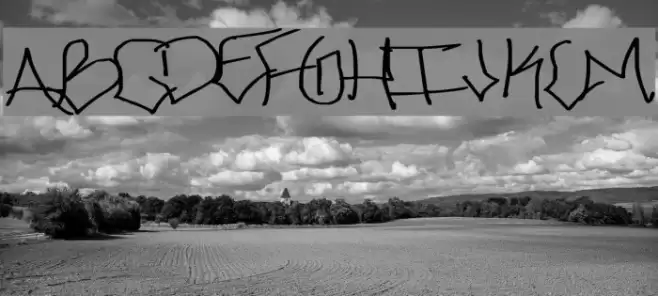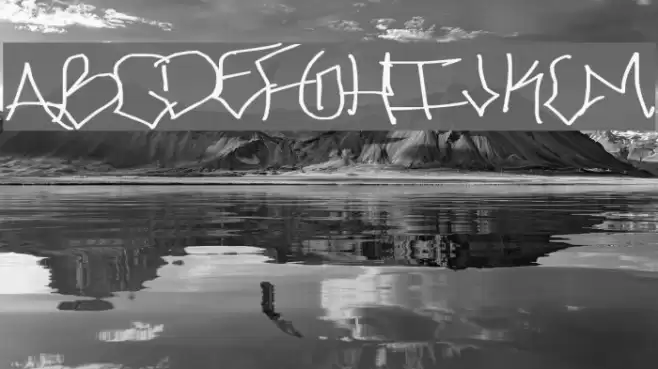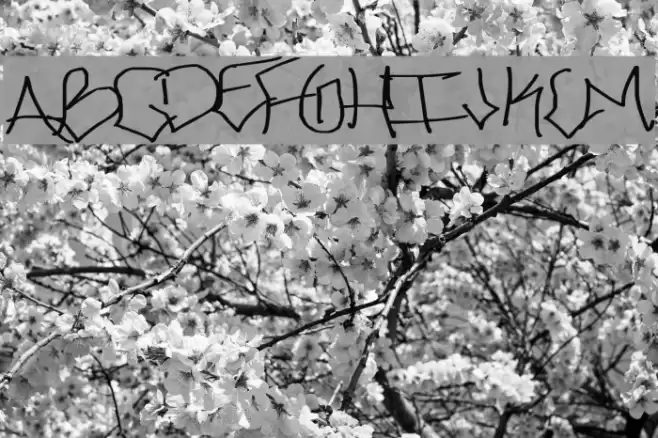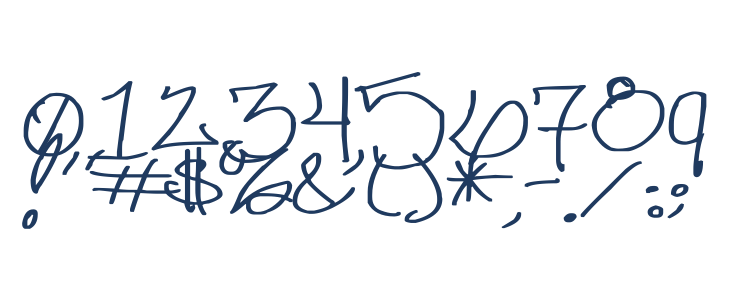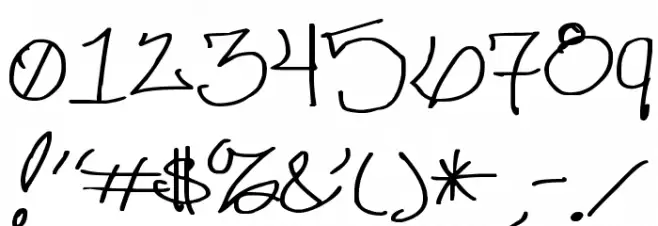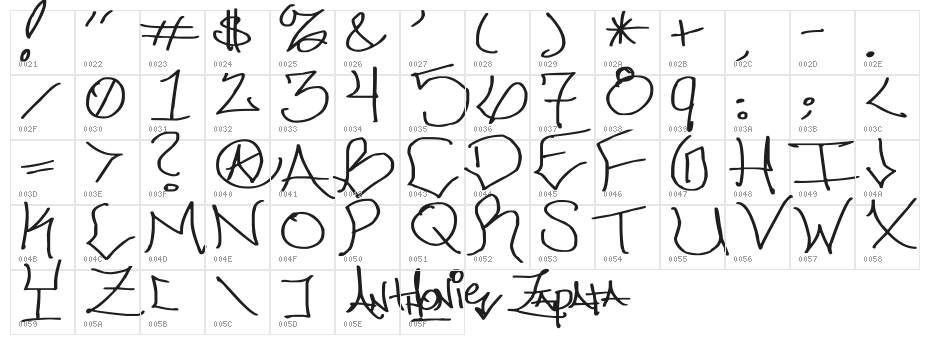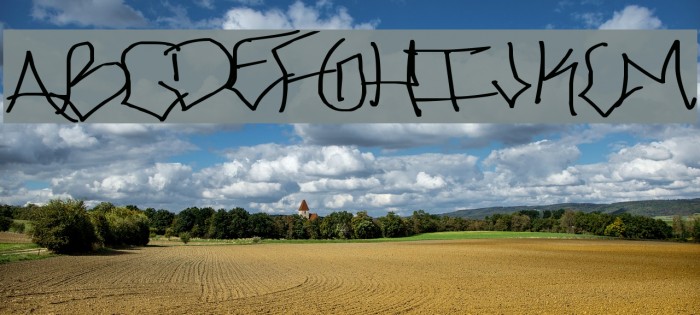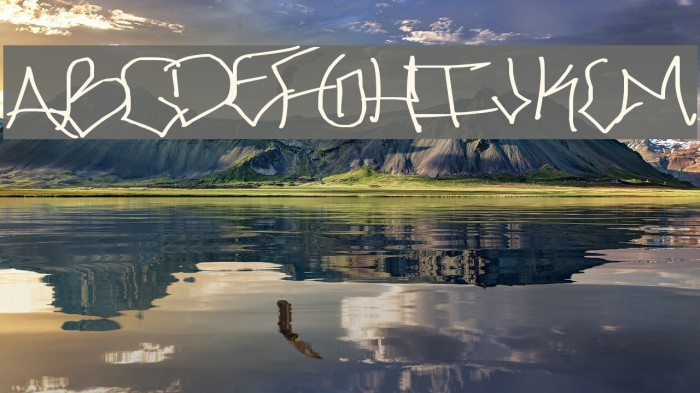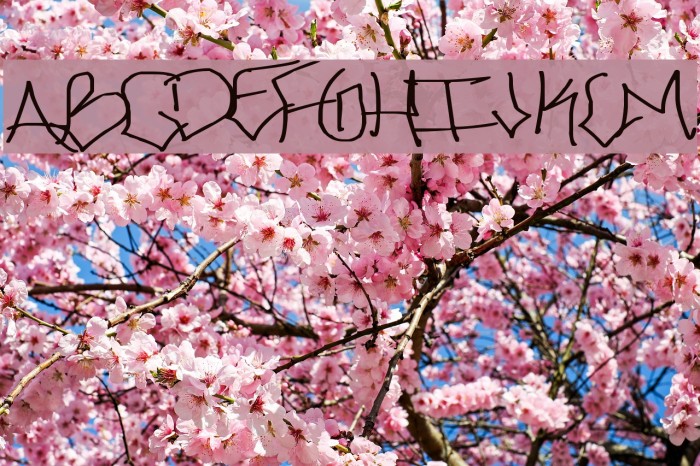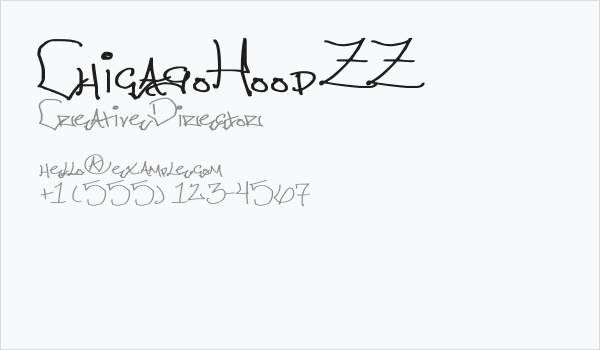
ChicagoHoodZZ Font
ChicagoHoodZZ Description
This font features a highly stylized, graffiti-inspired design with an urban edge. The letters are bold and dynamic, with exaggerated curves and sharp angles that create a sense of movement and energy. The uppercase and lowercase letters maintain a consistent style, while the numbers and special characters complement the overall aesthetic. The font's unique character is emphasized by its irregular line thickness and playful, almost chaotic arrangement, making it stand out in any design project.
A bold, graffiti-inspired font with dynamic curves and sharp angles from Uncategorized fonts.
- Proposed Projects: Ideal for street art designs, urban-themed posters, music album covers, and edgy branding projects.
- Character Spacing: Tight
- Overall Style: Modern, Urban